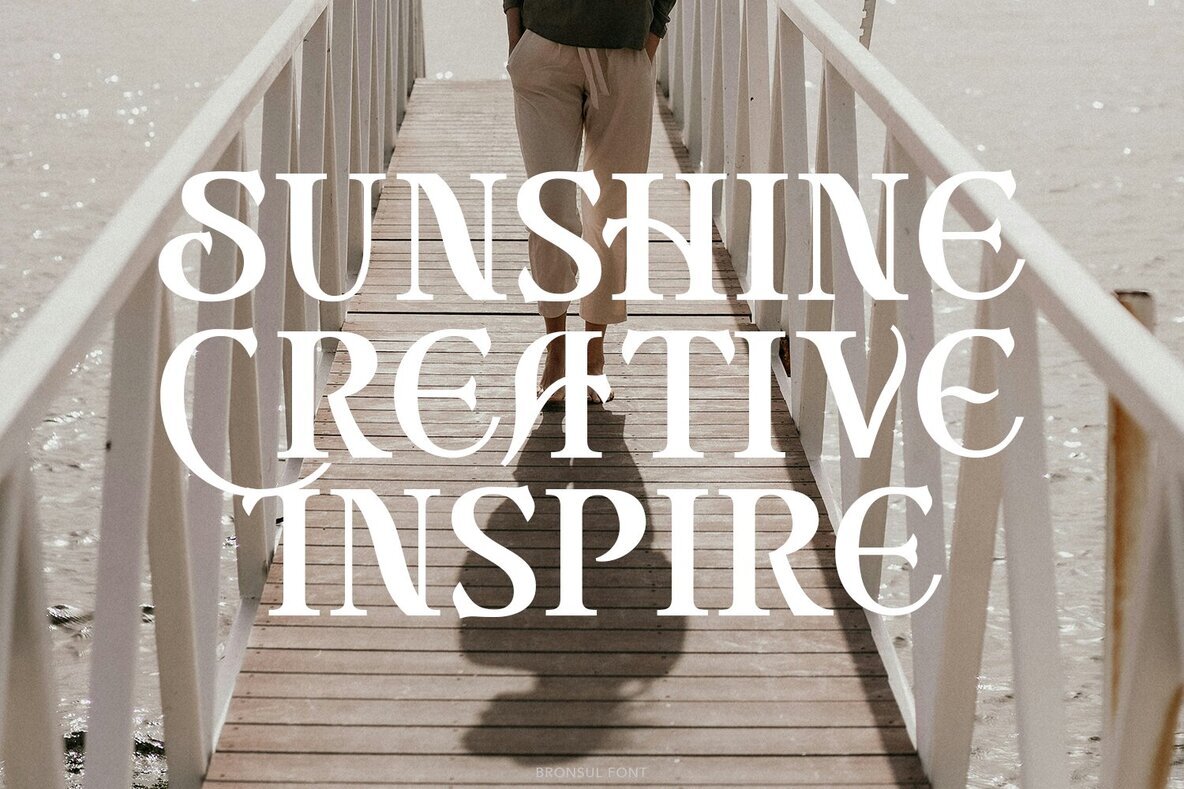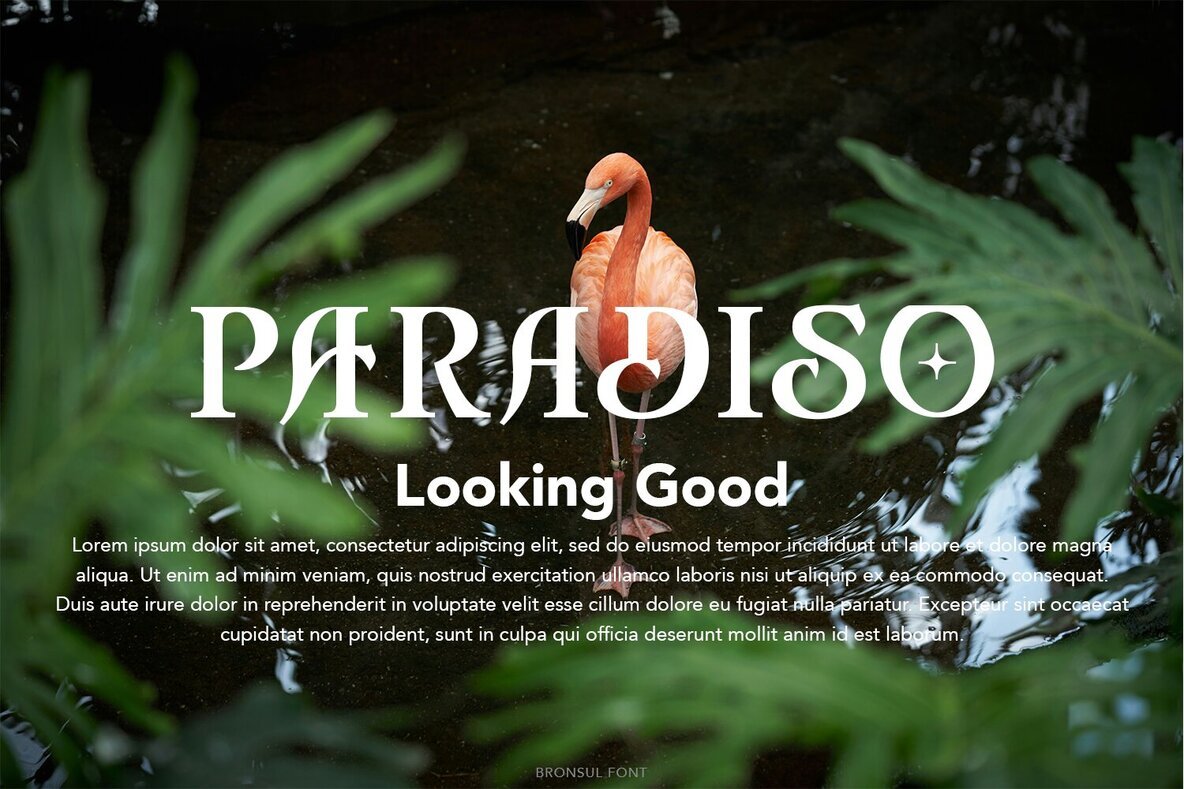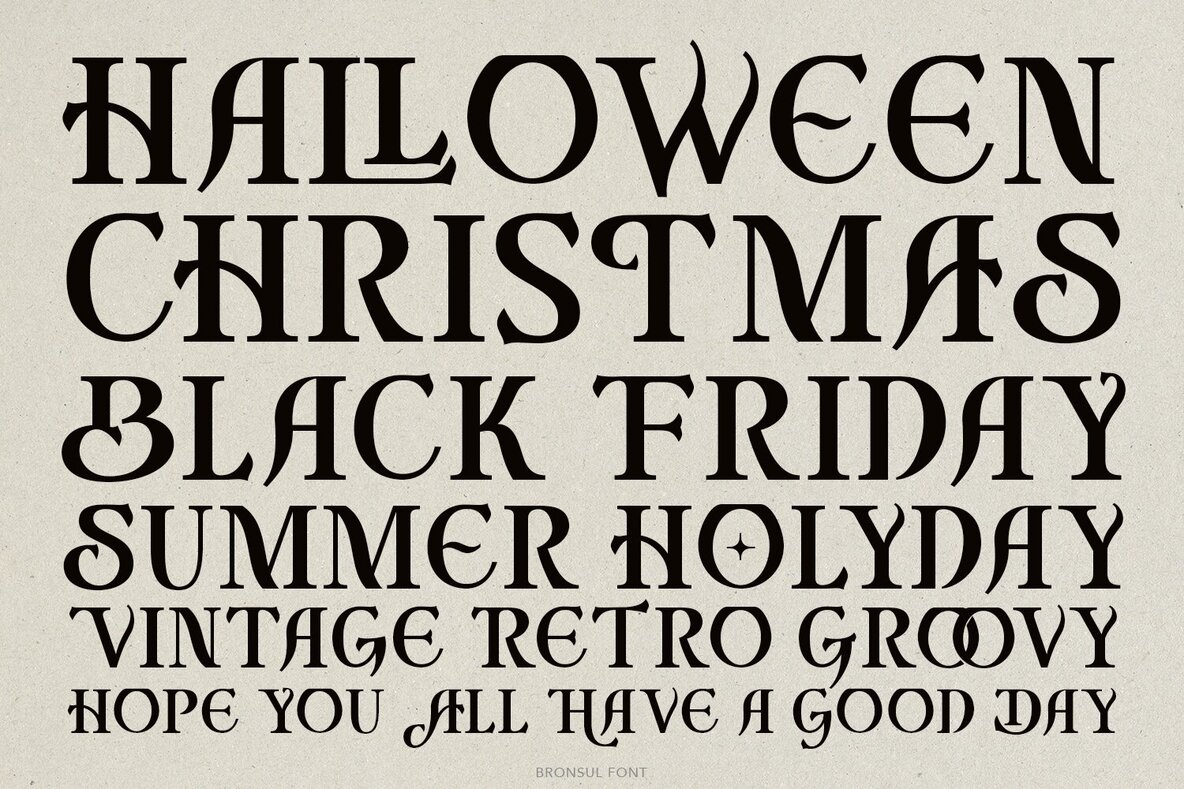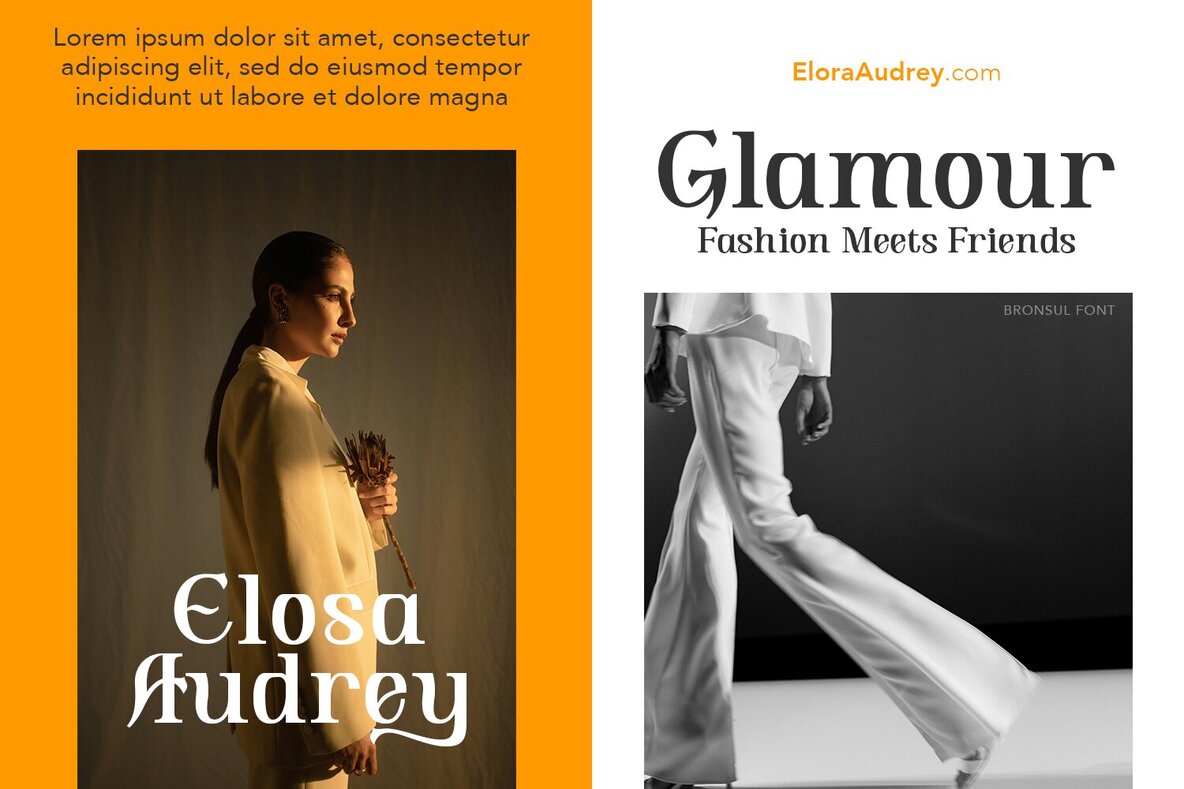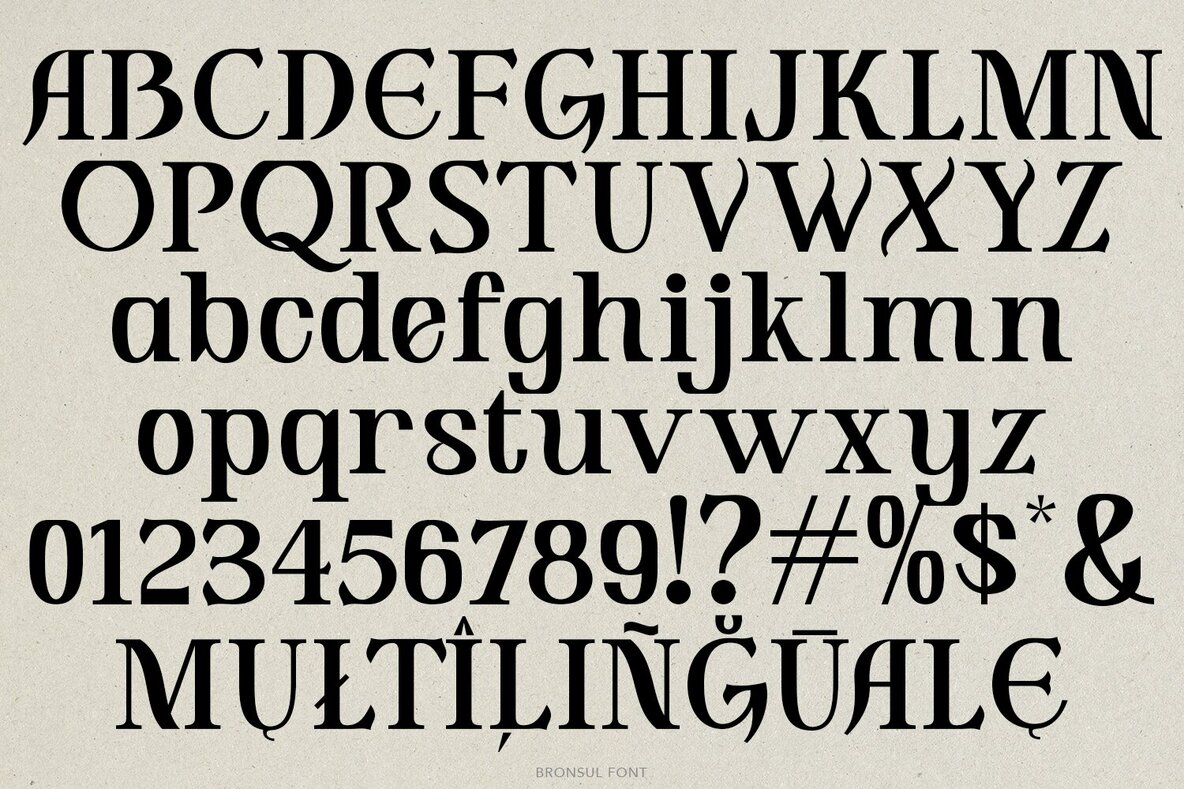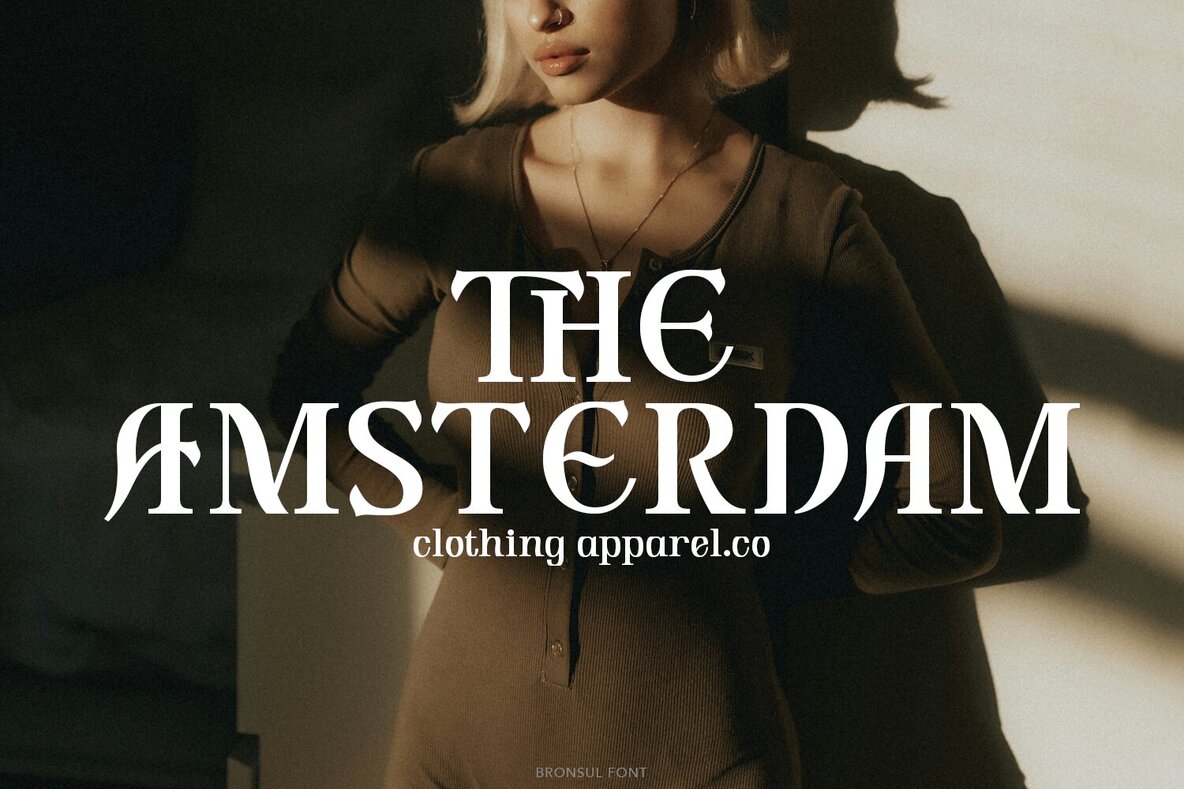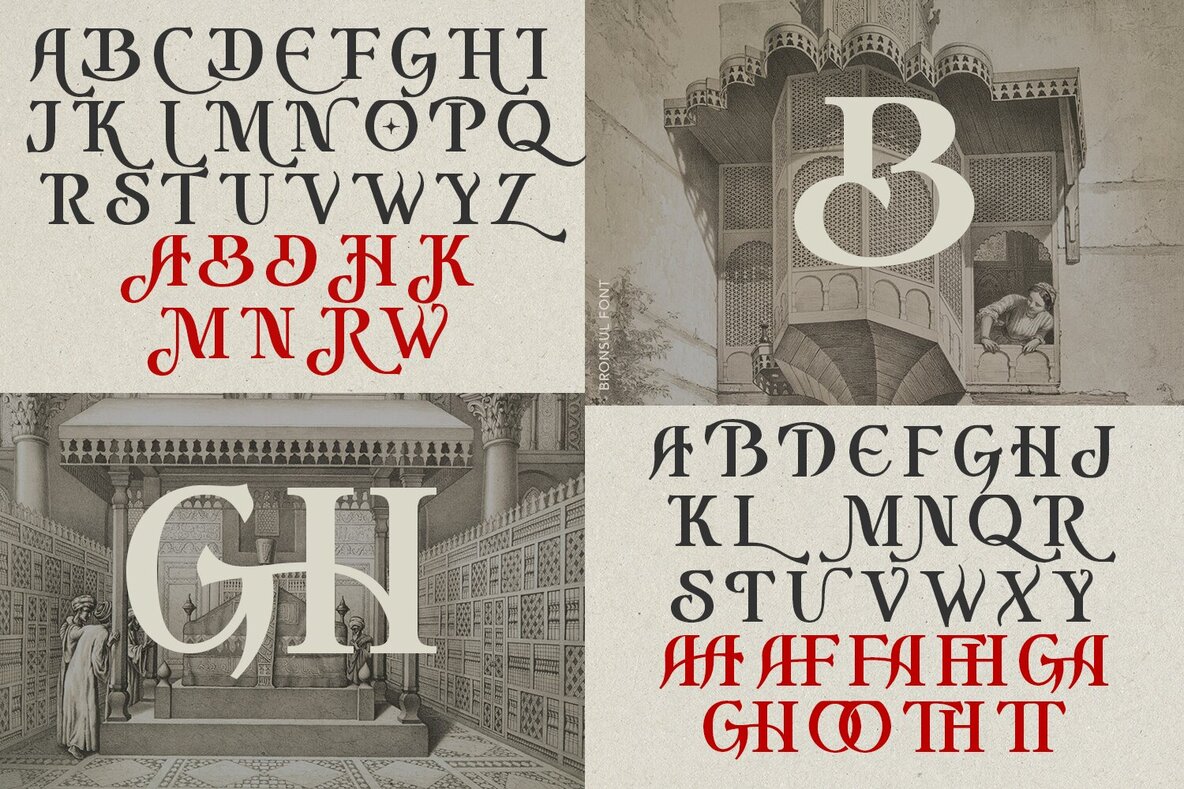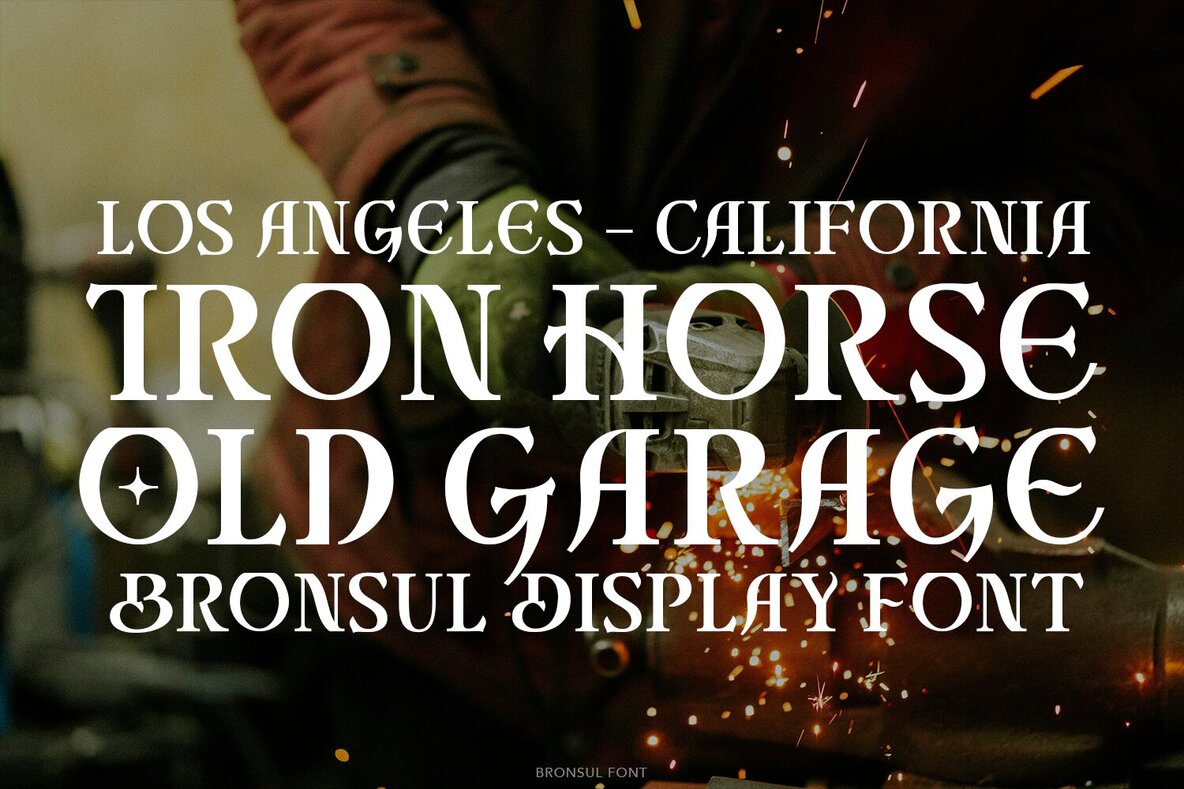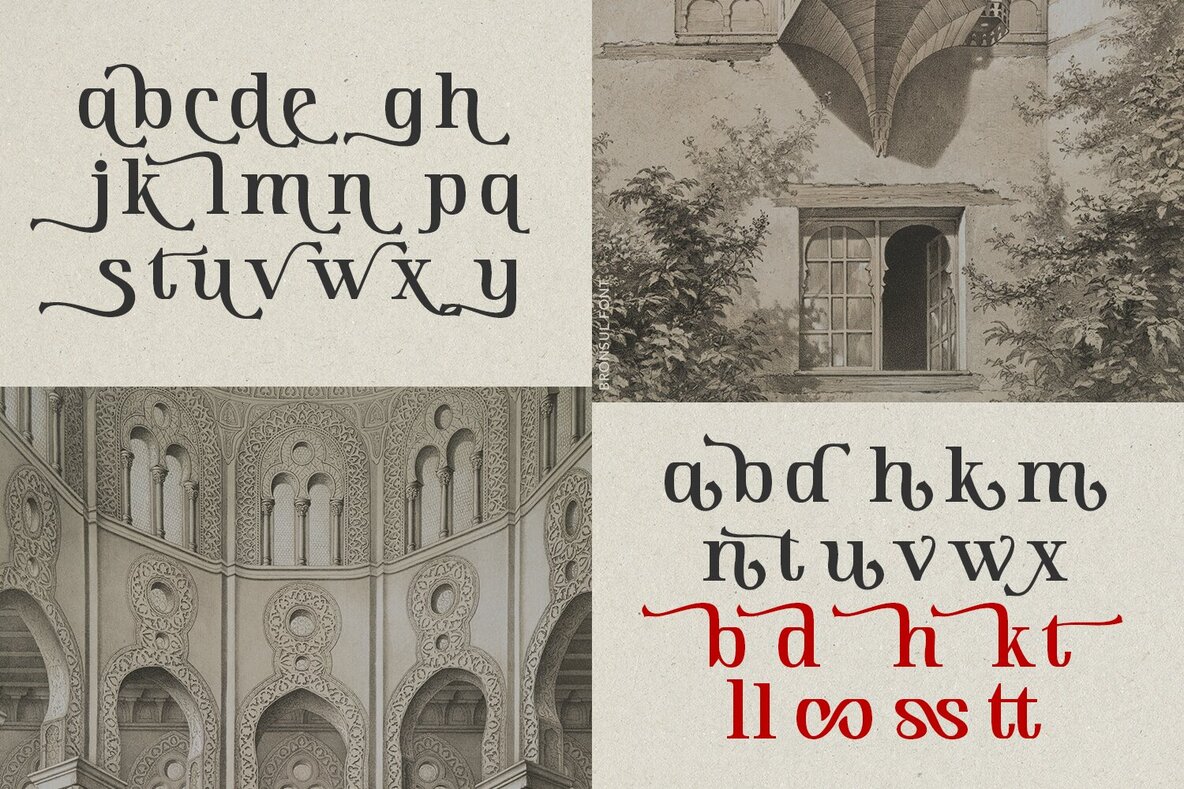
Bronsul Font
Bronsul Regular
This vintage serif font exudes an elegant and timeless charm, making it ideal for classic and sophisticated designs. Its ornate and refined style works beautifully in formal invitations, editorial spreads, book covers, branding, and headline displays. Perfect for any project that requires a bold yet stylish statement.